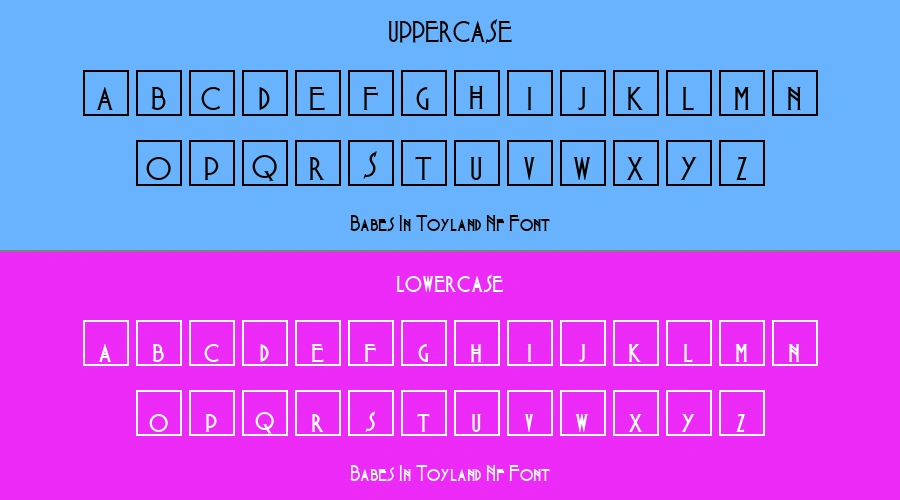
About Babes In Toyland Nf Font
Designed with precision, Babes In Toyland Nf Font merges systematic design with consistency in every character. This versatility makes it particularly effective for brand identities, where precision and adaptability directly impact communication quality. Each letterform demonstrates meticulous craftsmanship.
Technical excellence shines through elements like impactful forms and expert sets, enhancing typographic versatility. In brand statements settings, Babes In Toyland Nf Font proves its worth through superior personality transfer. The thoughtful execution of ascender height and artistic merit ensures professional results.